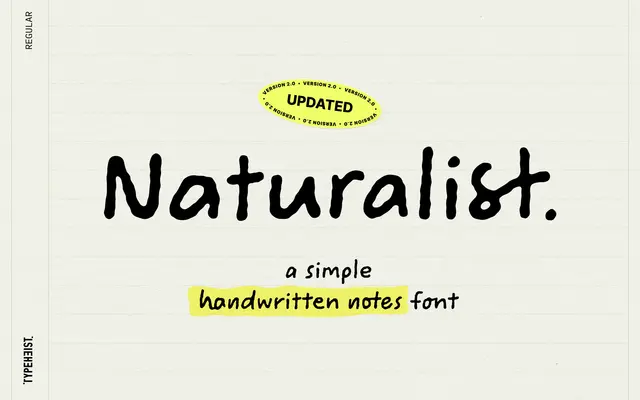
Trail Notes
A handwritten font duo pairing the rugged, vintage-inflected Wild Pines Park with the friendlier, annotation-ready Naturalist, sold as a matched bundle.
Trail Notes bundles two handwritten scripts designed to work together out of the box. Wild Pines Park carries a nostalgic, field-guide quality suited to titles and branding, while Naturalist offers a lighter, textured hand more at home in labels, annotations and small-text moments. Both have been updated with multilingual character sets and improved kerning, and the bundle includes ligatures and a range of glyphs.
Both fonts in the duo are casual handwritten scripts with an organic, textured finish, placing them firmly in the handwritten script subcategory.